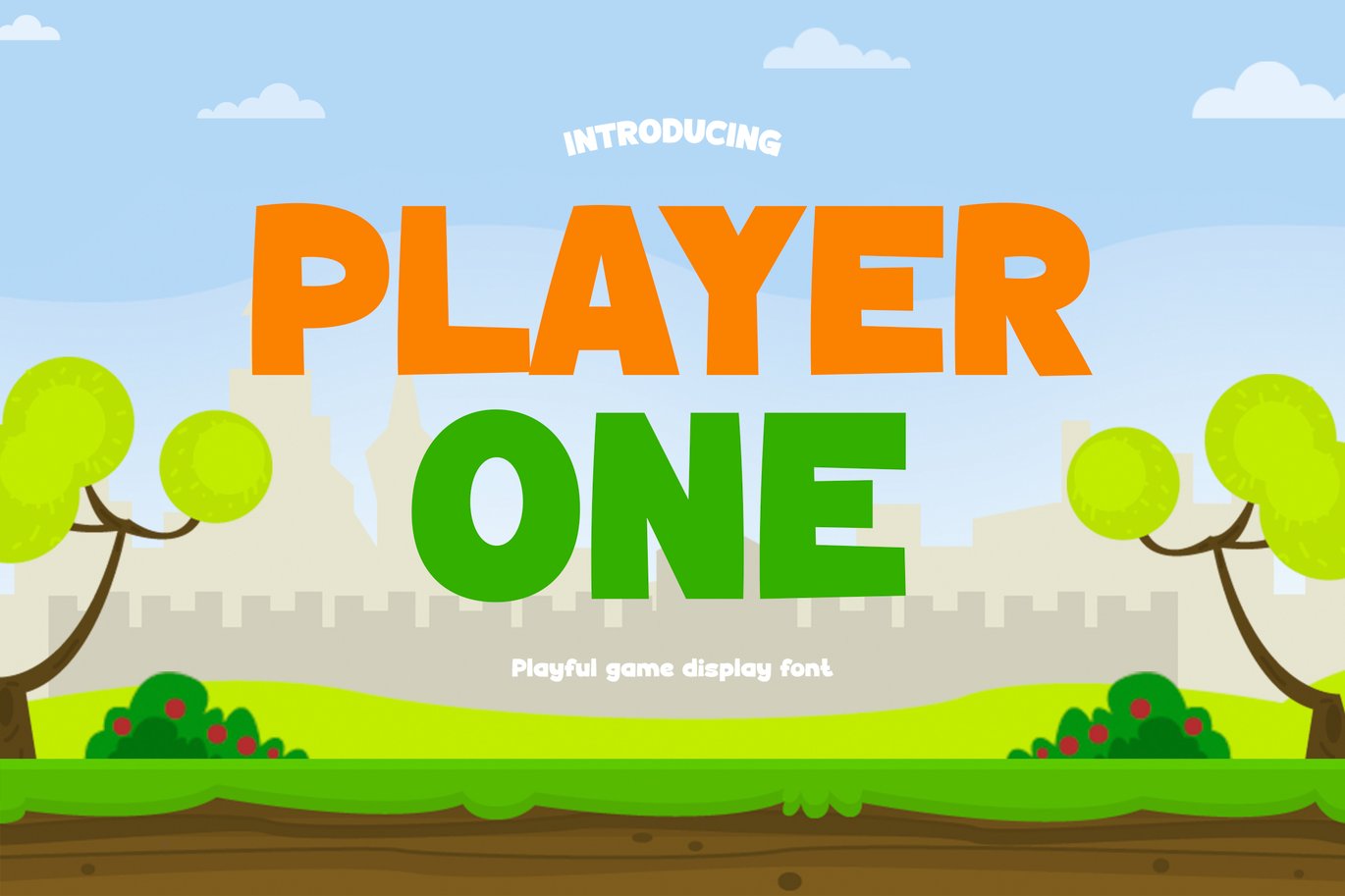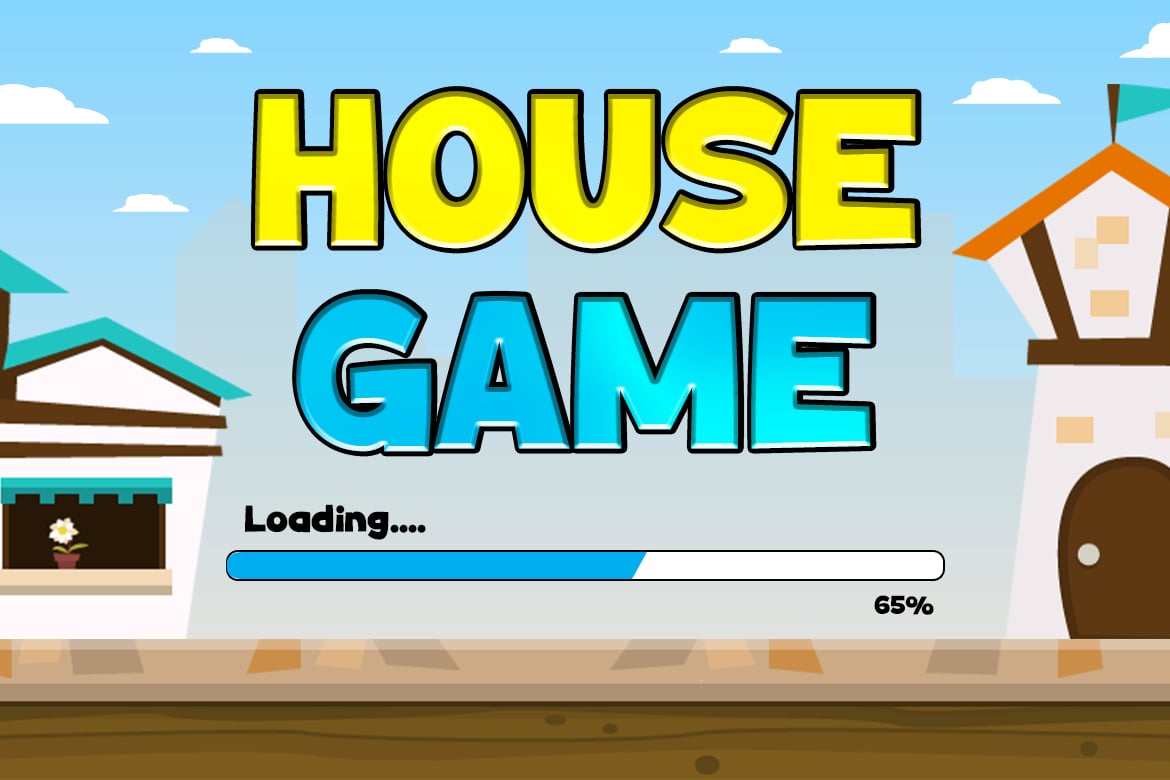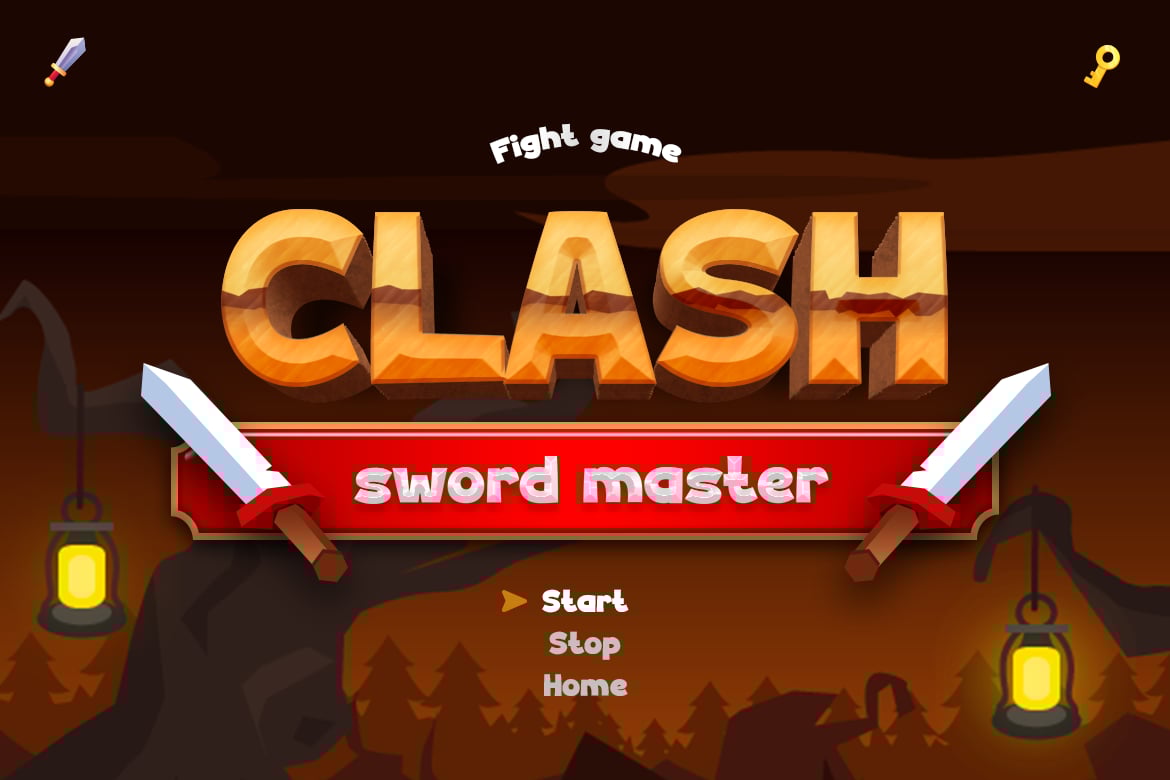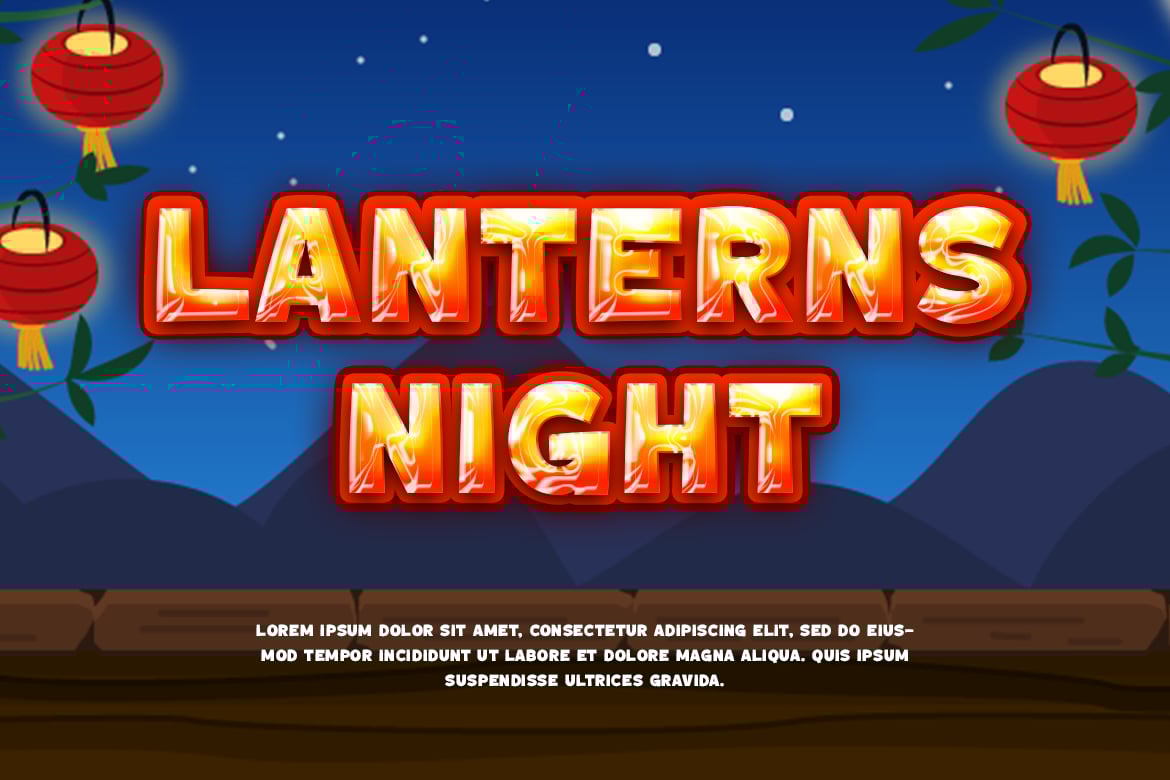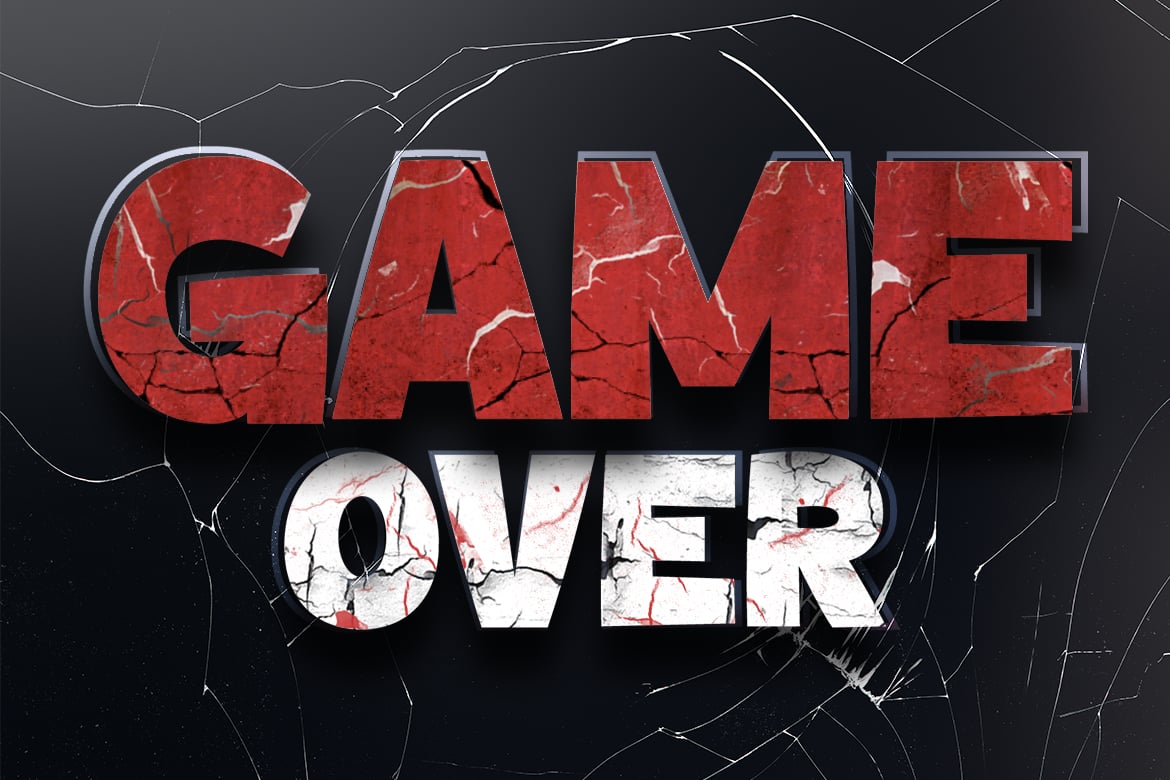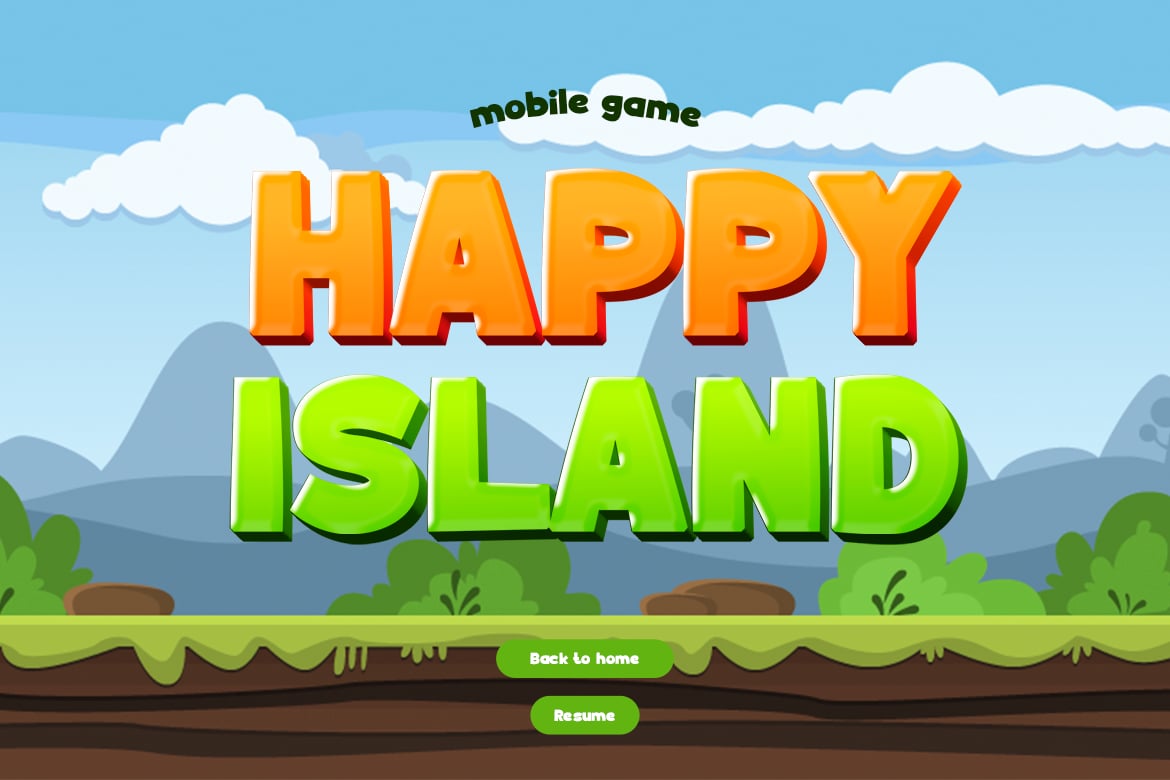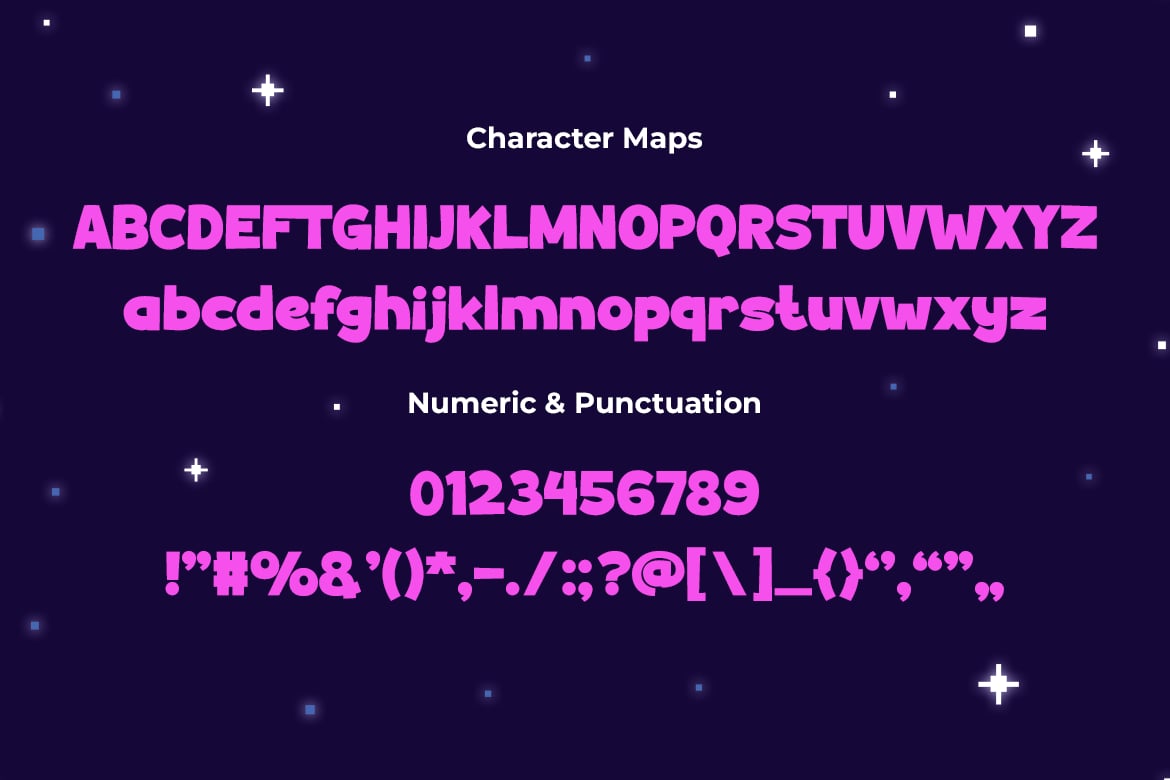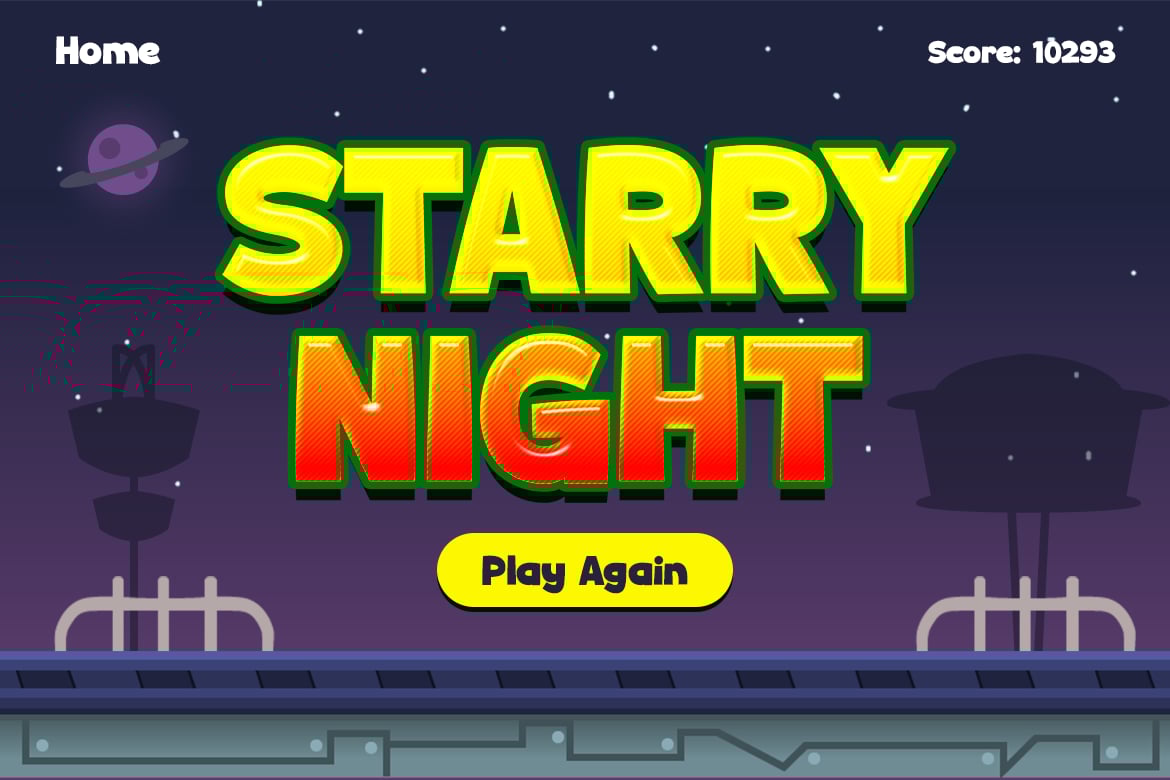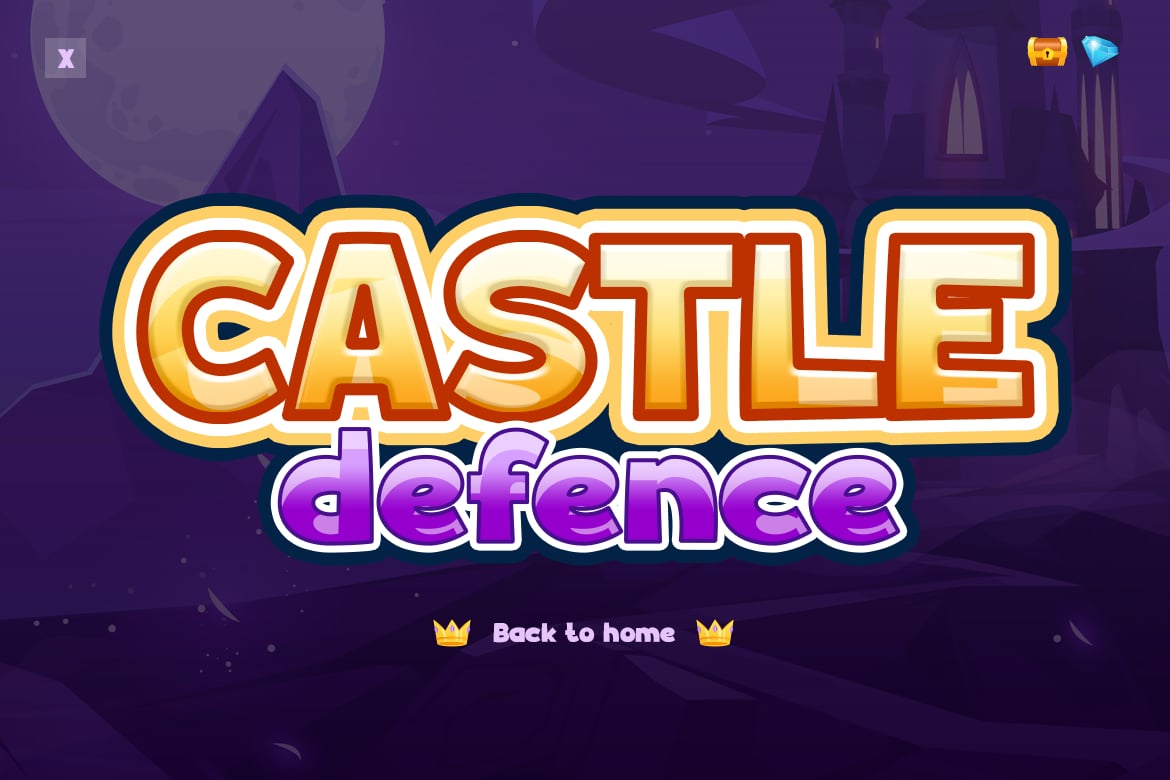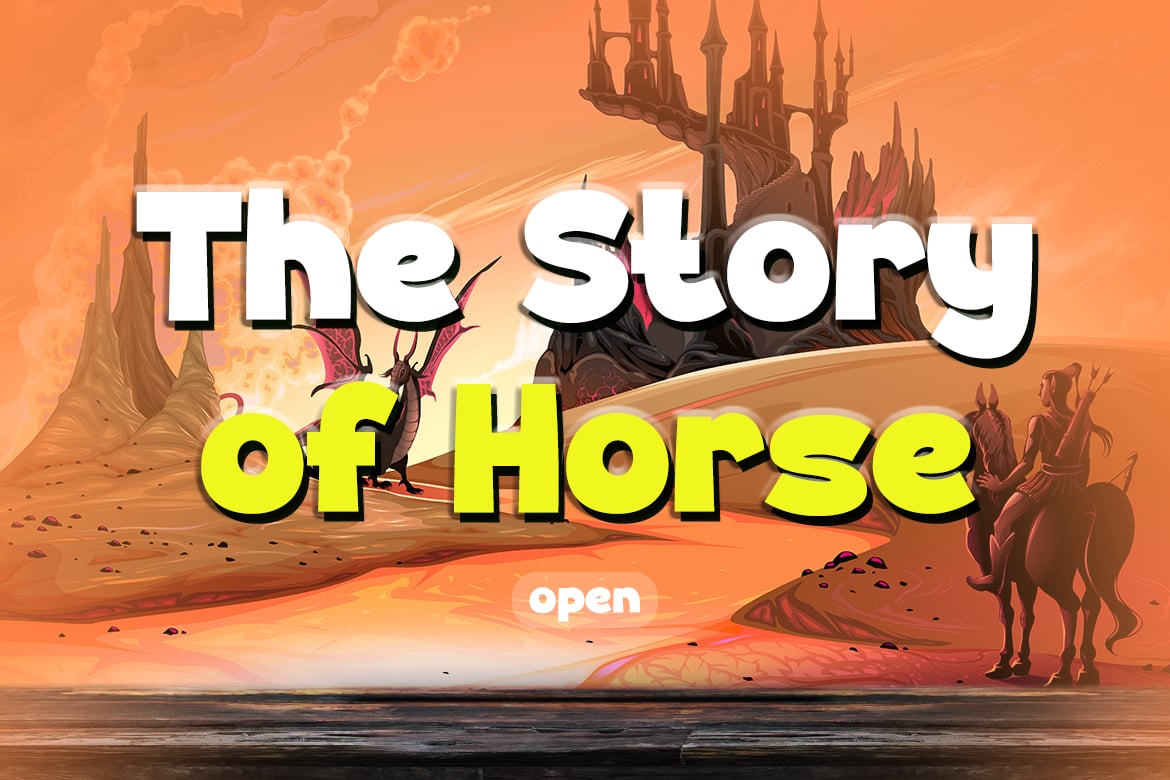
Player One – Gaming Fun Font
Player One is a captivating font that brings gaming excitement to life. With its fun and playful style, this font is perfect for adding a touch of adventure to various projects. From gaming aesthetics to book covers, children’s books, comics, posters, packaging, merchandise, and logotypes, Player One adds a dash of creativity and imagination. Let the quirky and dynamic letterforms of Player One transport you to a world filled with virtual excitement. Whether you’re designing for gamers or want to infuse your project with a sense of fun, Player One is your ultimate choice. Get ready to press start and embark on an incredible journey with Player One!